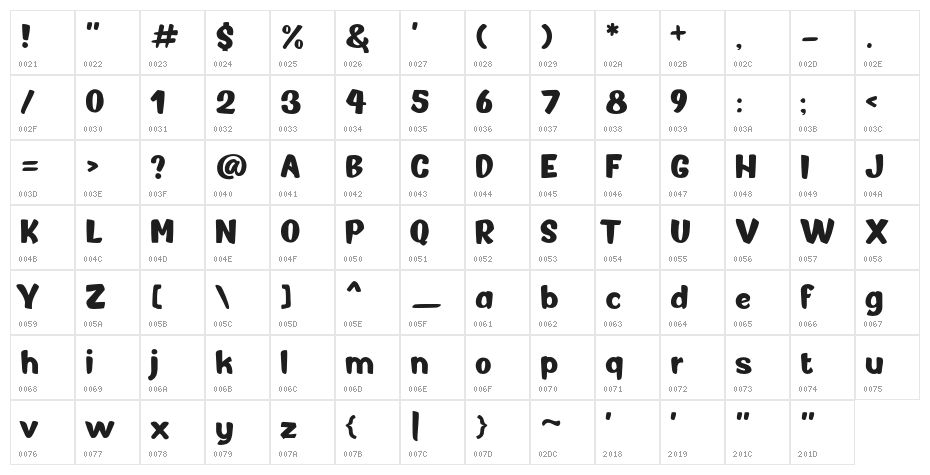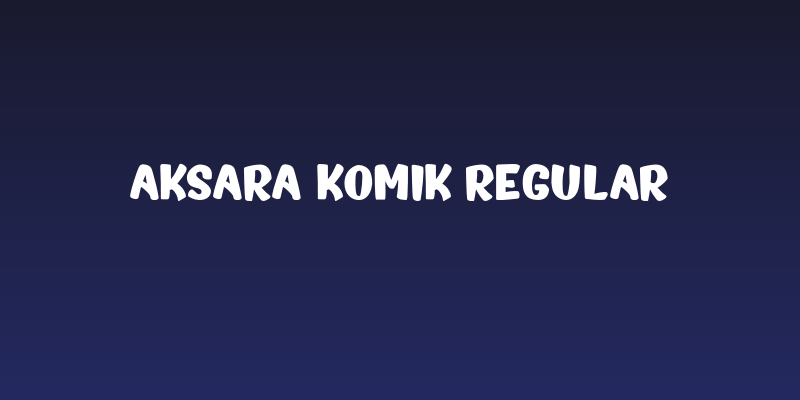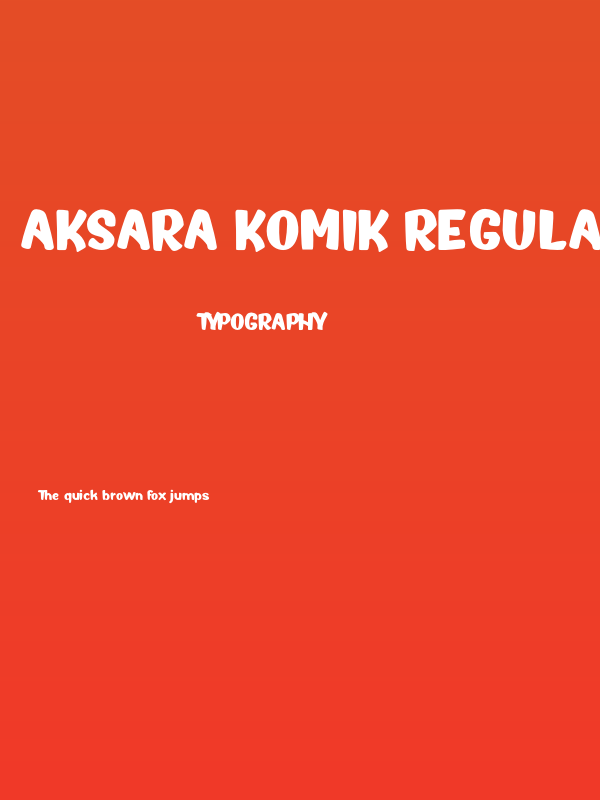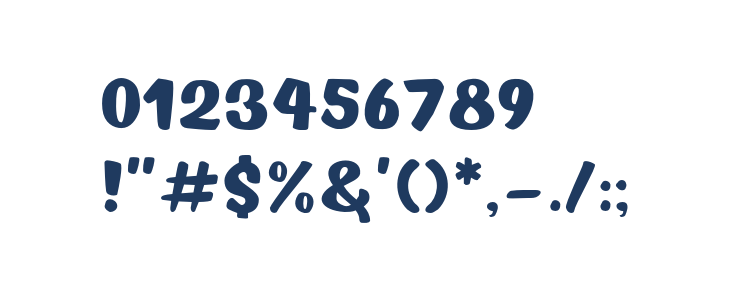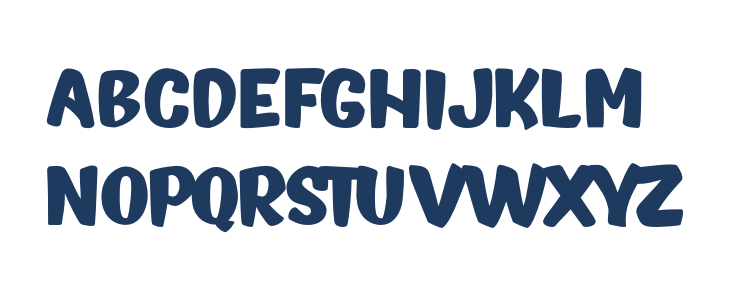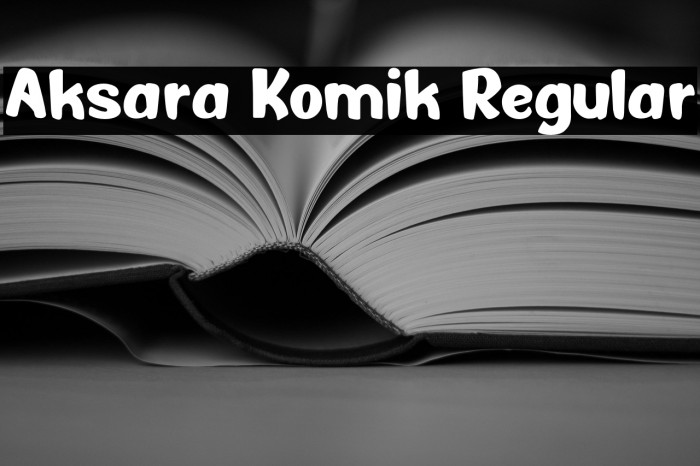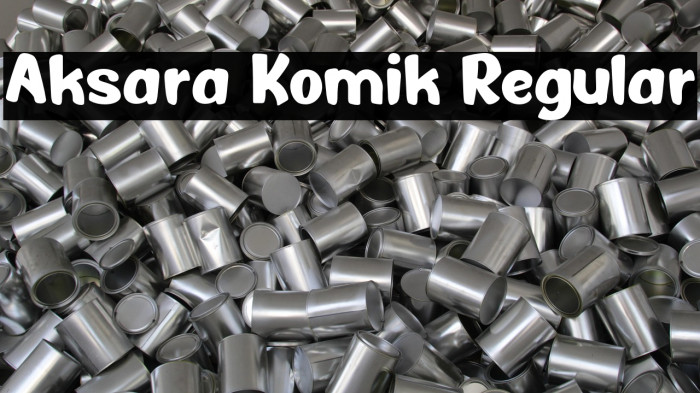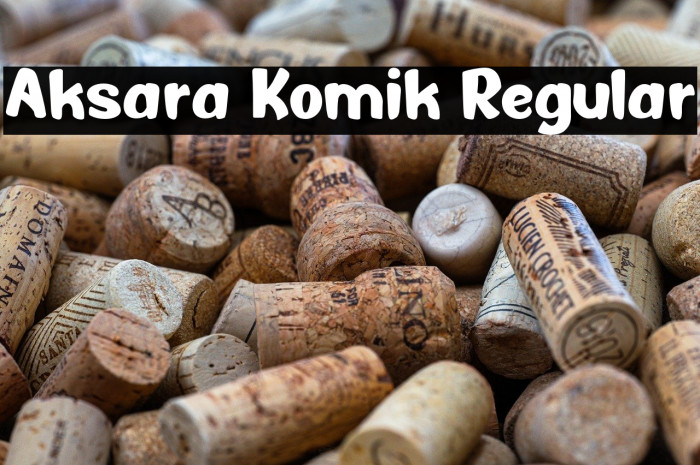
Aksara Komik Regular Font
Aksara Komik Regular Description
A bold, playful, and rounded sans-serif font with a hand-drawn comic style. The characters have a slightly irregular and chunky appearance, giving a casual and friendly vibe.
| Overall Style | Playful, Casual, Comic |
| Use Case | Headlines, Logos, Informal text |
| Proposed Projects | Children's books, comic strips, informal invitations, posters, and playful branding. |